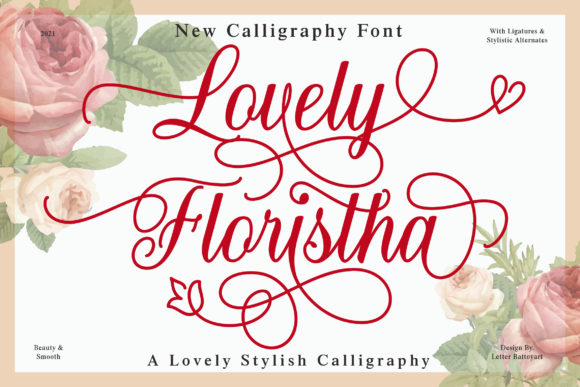
Introducing Lovely Floristha Font - A Serene Retreat for Your Artistic Soul
In a world where fonts often feel mass-produced and impersonal, Lovely Floristha emerges as a captivating exception. This elegant script font, meticulously crafted by the skilled hands of letter battoyart, is a handwritten masterpiece that exudes warmth, beauty, and timeless charm.
As you immerse yourself in the world of Lovely Floristha, you'll discover a font that effortlessly captures the essence of creativity and individuality. Its graceful strokes dance across the page, evoking a sense of tranquility and sophistication that will elevate your artistic projects to new heights.
Whether you're designing enchanting wedding invitations, creating personalized business cards, or simply adding a touch of elegance to your personal journaling, Lovely Floristha is the perfect companion. Its versatility extends far beyond traditional applications, making it an ideal choice for branding, logos, and countless other projects where a touch of sophistication is desired.
But what truly sets Lovely Floristha apart is its PUA encoding, a feature that grants you effortless access to a treasure trove of glyphs and swashes. Unleash your creativity and explore the endless possibilities to craft designs that captivate and inspire.
With Lovely Floristha, the boundaries of your imagination are the only limits. Embrace the beauty of handwritten elegance and embark on a creative journey where your projects blossom into works of art. Experience the allure of Lovely Floristha today and let your creativity soar!